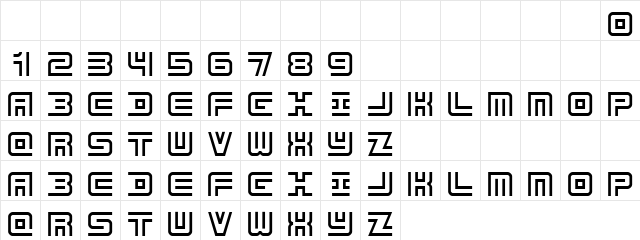
Undercover Regular Free Font
Undercover Regular
Design Context for Undercover
Undercover is a composed and adaptable typeface that performs quietly and consistently across a wide range of design contexts.